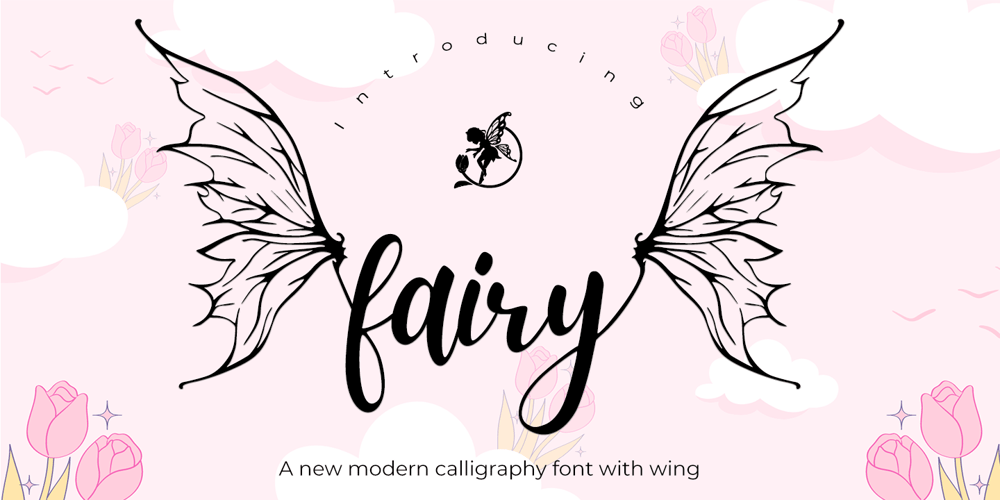
Fairy Font Family was designed by Muhammad Zaini and published by Cocodesign. Fairy contains 1 styles and family package options. Fairy is an exquisite handwritten script font, masterfully designed to become a true favorite. It maintains its classy calligraphic influences while feeling contemporary and fresh. Fall in love with it and bring your projects to the highest levels!